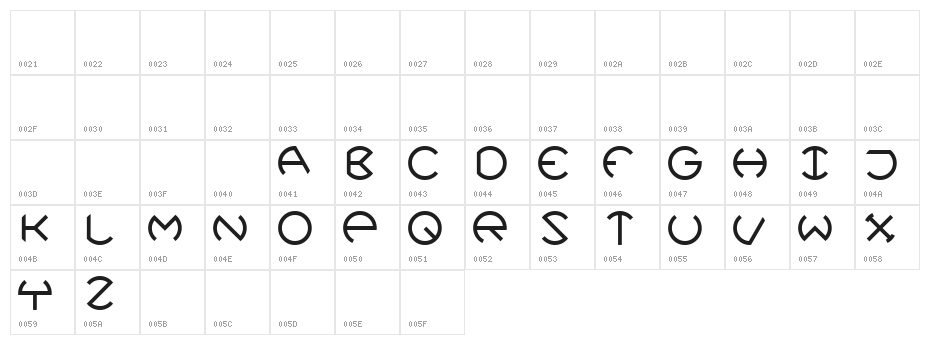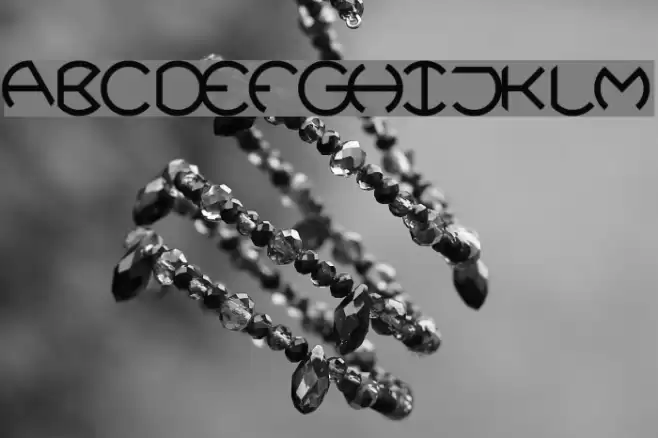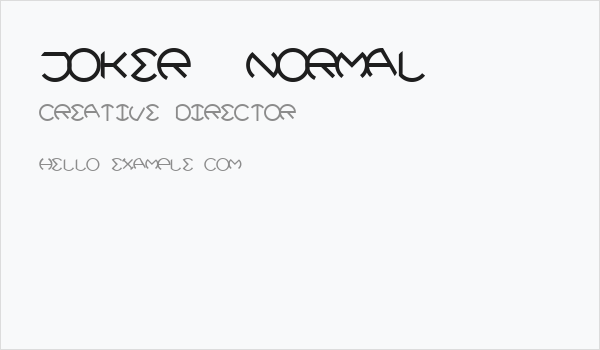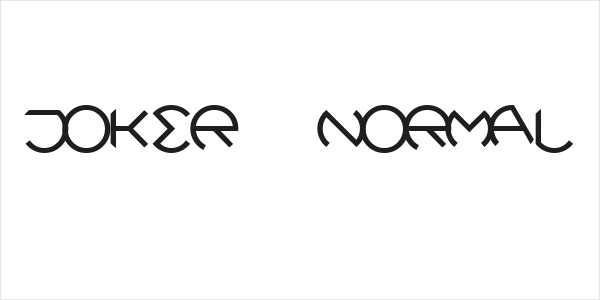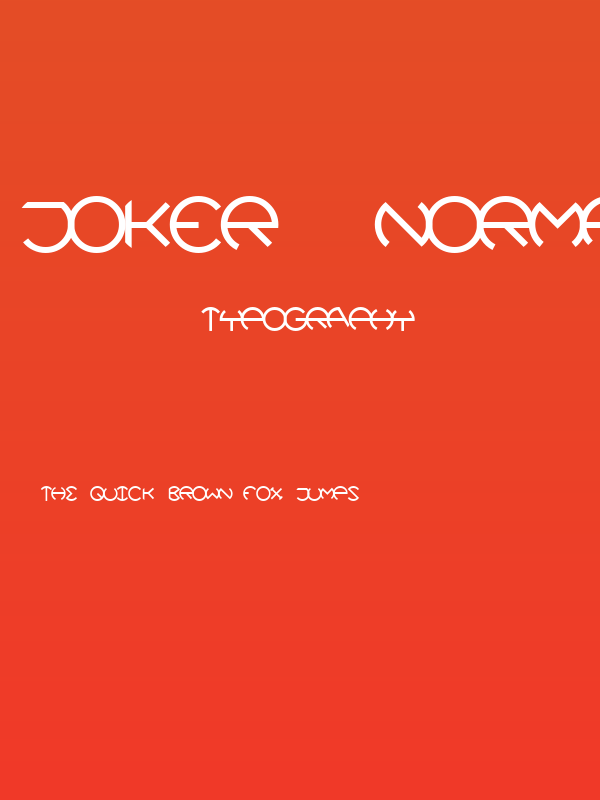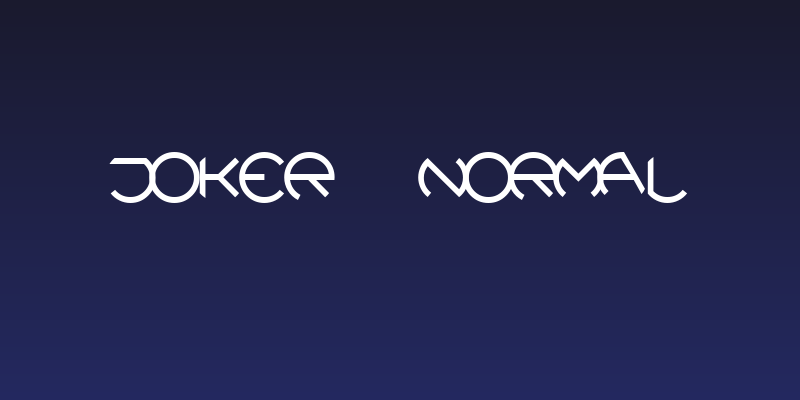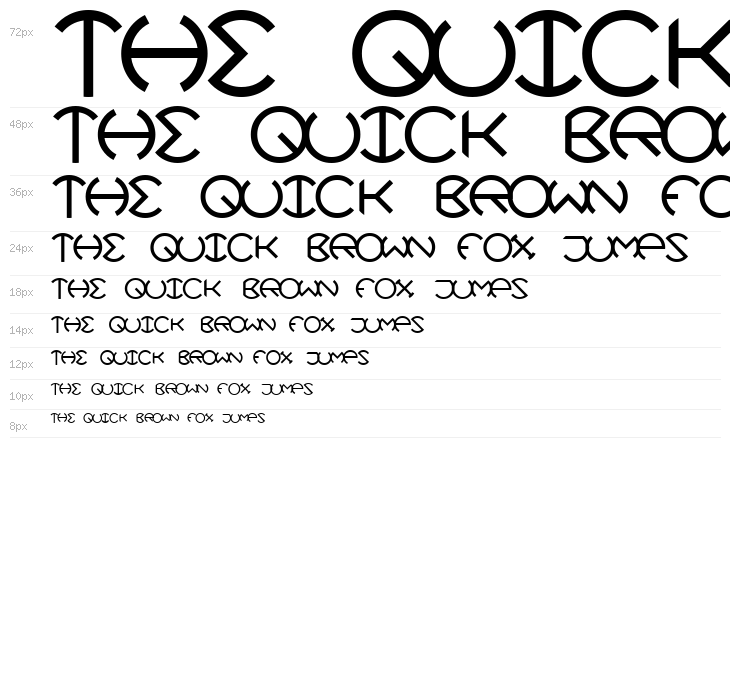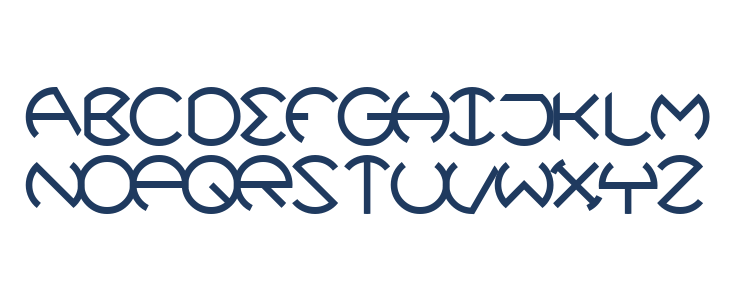
Joker Normal Font
Joker Normal Description
This font features a unique and playful design with a modern twist. Each character is crafted with a combination of geometric shapes and smooth curves, creating a visually striking appearance. The letters are bold and have a consistent stroke width, giving them a strong presence on the page. The overall style is decorative, making it ideal for creative and eye-catching designs. The font's distinctive look is characterized by its symmetrical and angular elements, which add a sense of balance and harmony. Its artistic flair makes it suitable for projects that require a touch of whimsy and creativity.